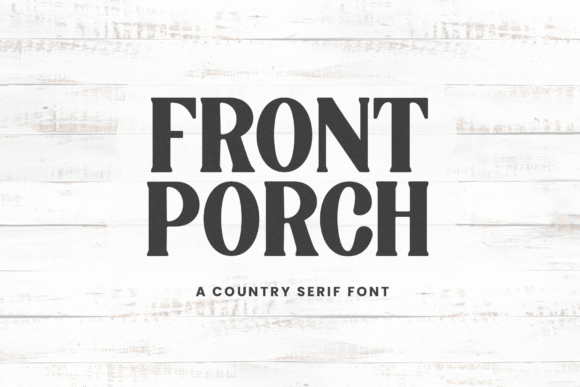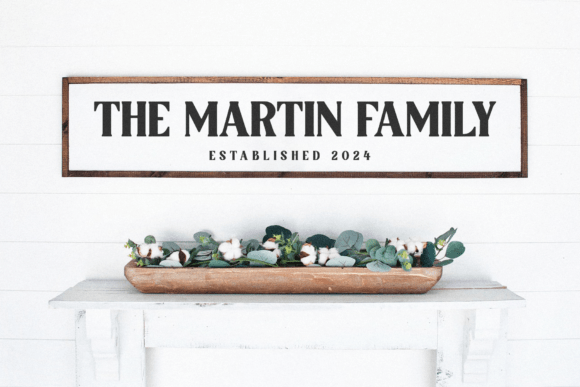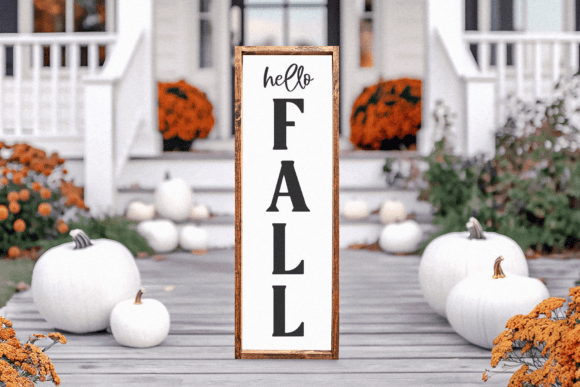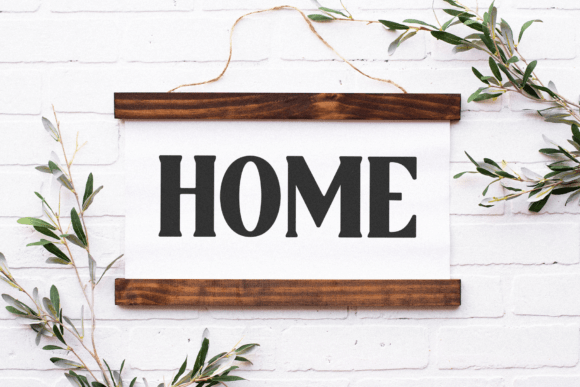
Front Porch Font: Rustic Serif Typography for Farmhouse DIY & Cricut Crafts
About the Front Porch Font
Elevate your designs with Front Porch Font, a font that combines sophistication with readability. Front Porch is a rustic serif font that is perfect for all of your farmhouse crafts. This font will add charm to any welcome sign, family sign or doormat. Front Porch is a wonderful addition for creating logos, shirts, mugs, hats, signs and more! This serif has a country rustic look but it is clean and cuts well.
Front Porch’s rustic charm makes it ideal for branding projects emphasizing handcrafted goods, farm-to-table cuisine, or home décor. It works exceptionally well in headlines, short-form text on packaging, and signage where its slightly distressed aesthetic adds visual interest. However, avoid using it for lengthy body text or UI elements; its character is better suited to impactful statements rather than extended readability.
Pair Front Porch with a clean sans-serif like Open Sans for a balanced contrast, or a playful script font like Great Vibes for a more whimsical feel. A geometric sans-serif such as Futura would also create a compelling juxtaposition, offering a modern counterpoint to the font’s vintage appeal.
The overall personality of Front Porch is friendly and approachable, conveying a sense of warmth and nostalgia. Its rustic details hint at craftsmanship and tradition, making it a versatile choice for projects aiming for a comforting and inviting aesthetic.
Front Porch Font Usage Examples
Front Porch Font Example